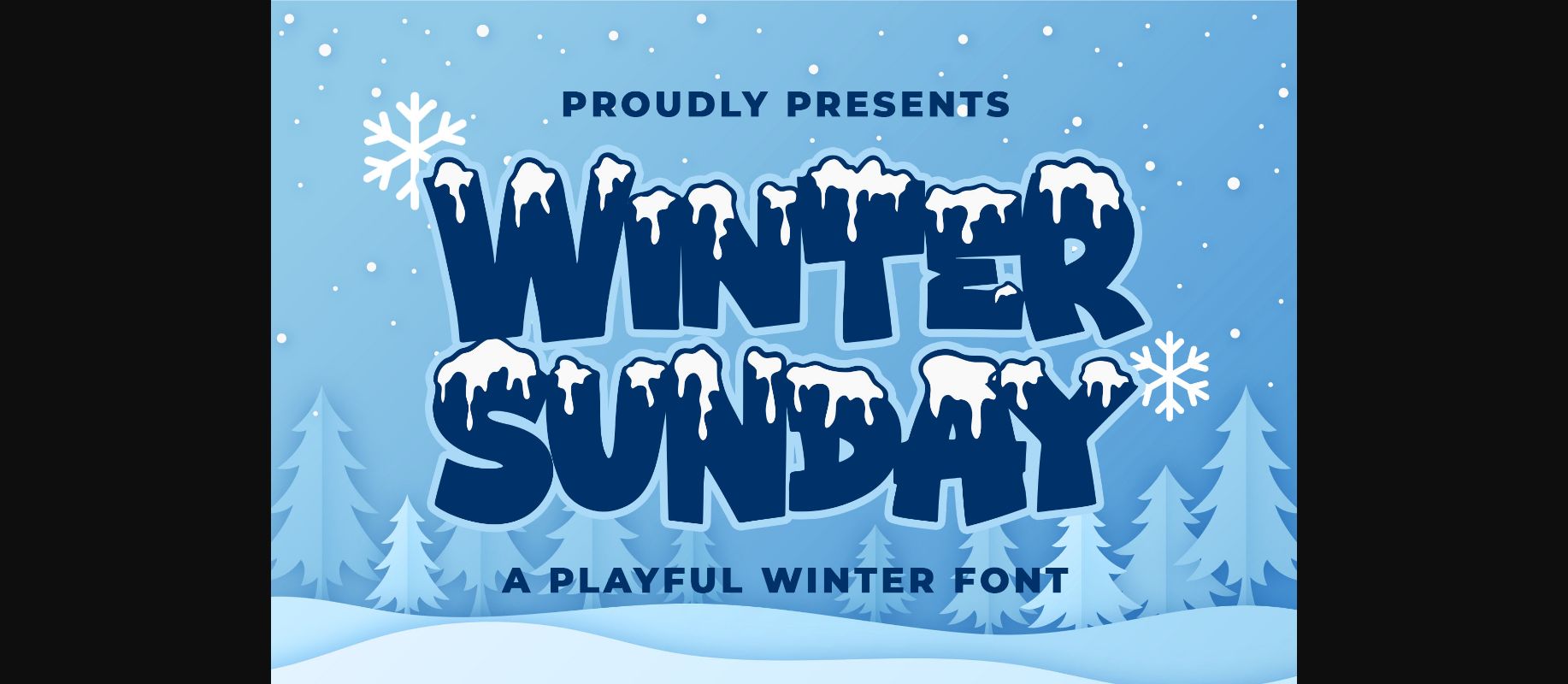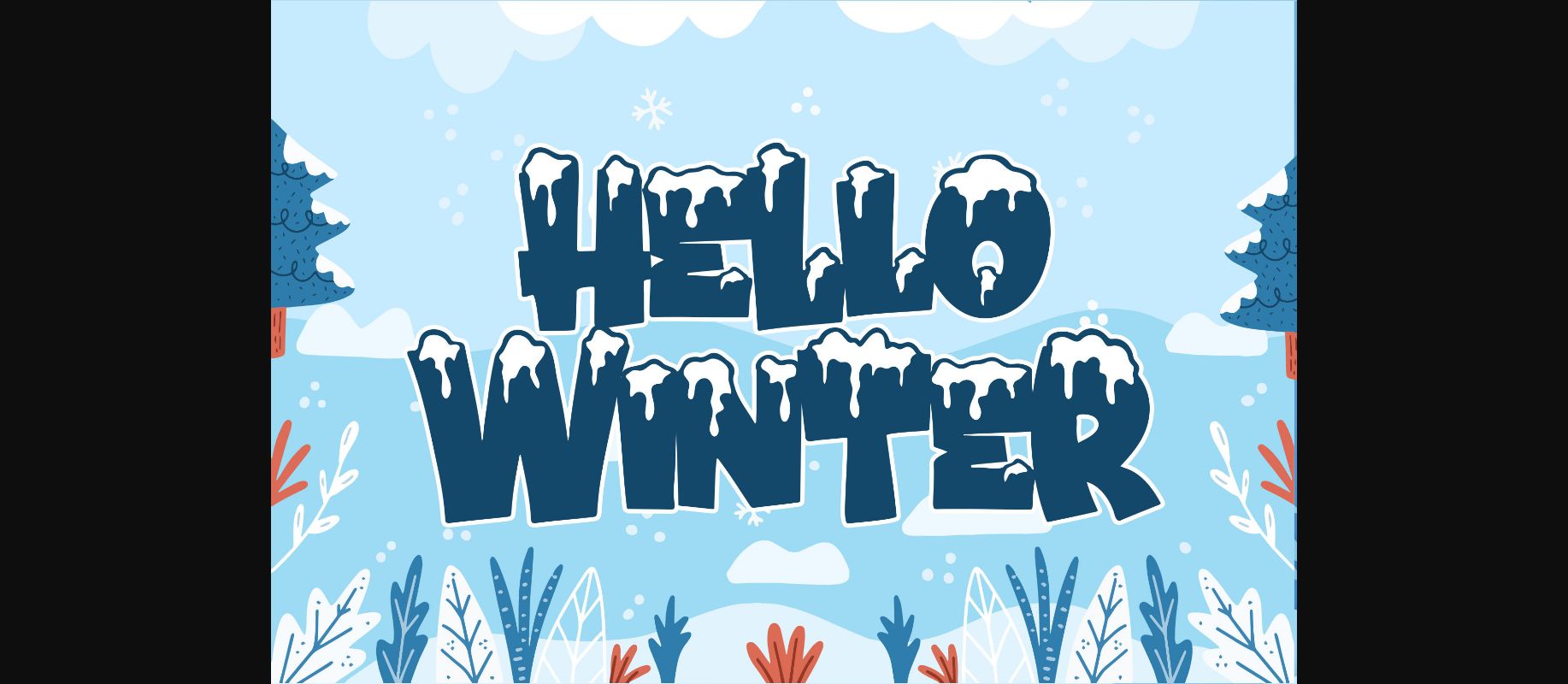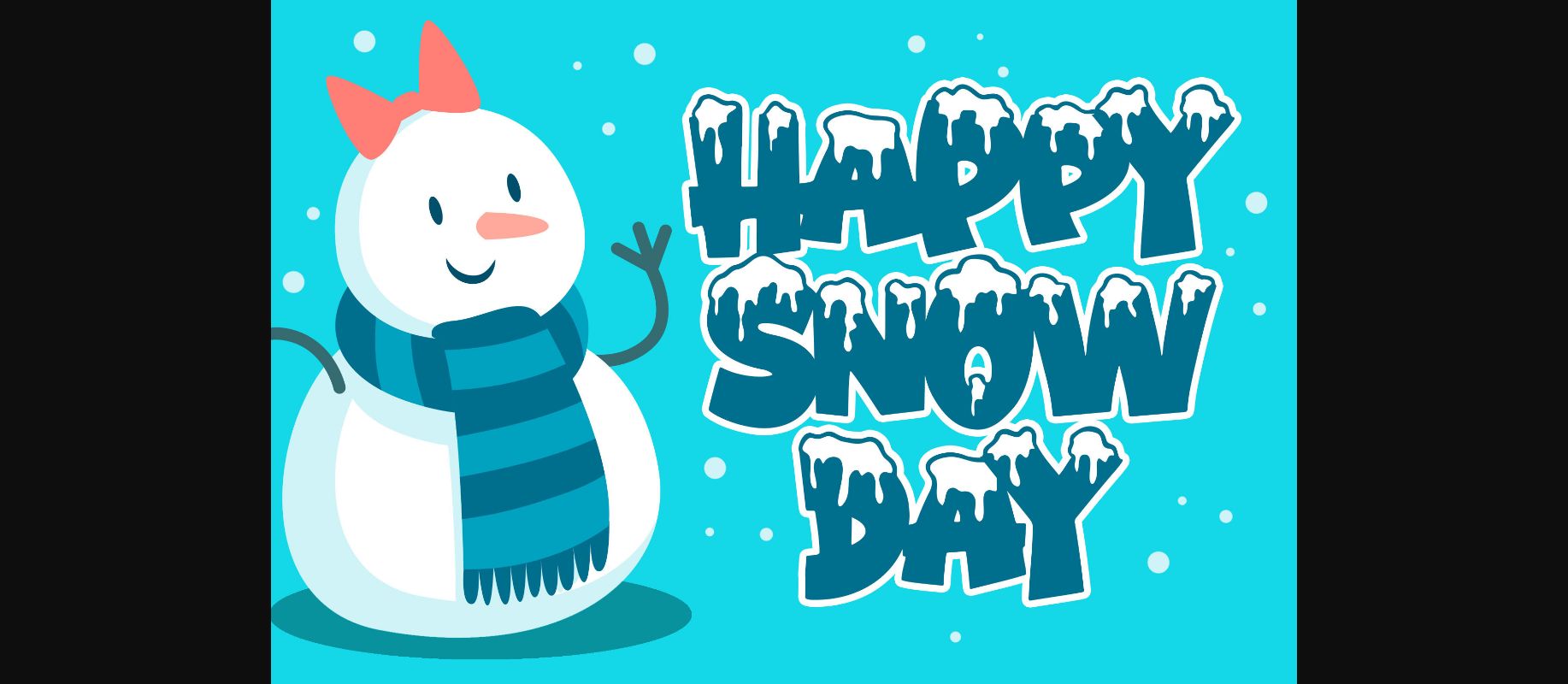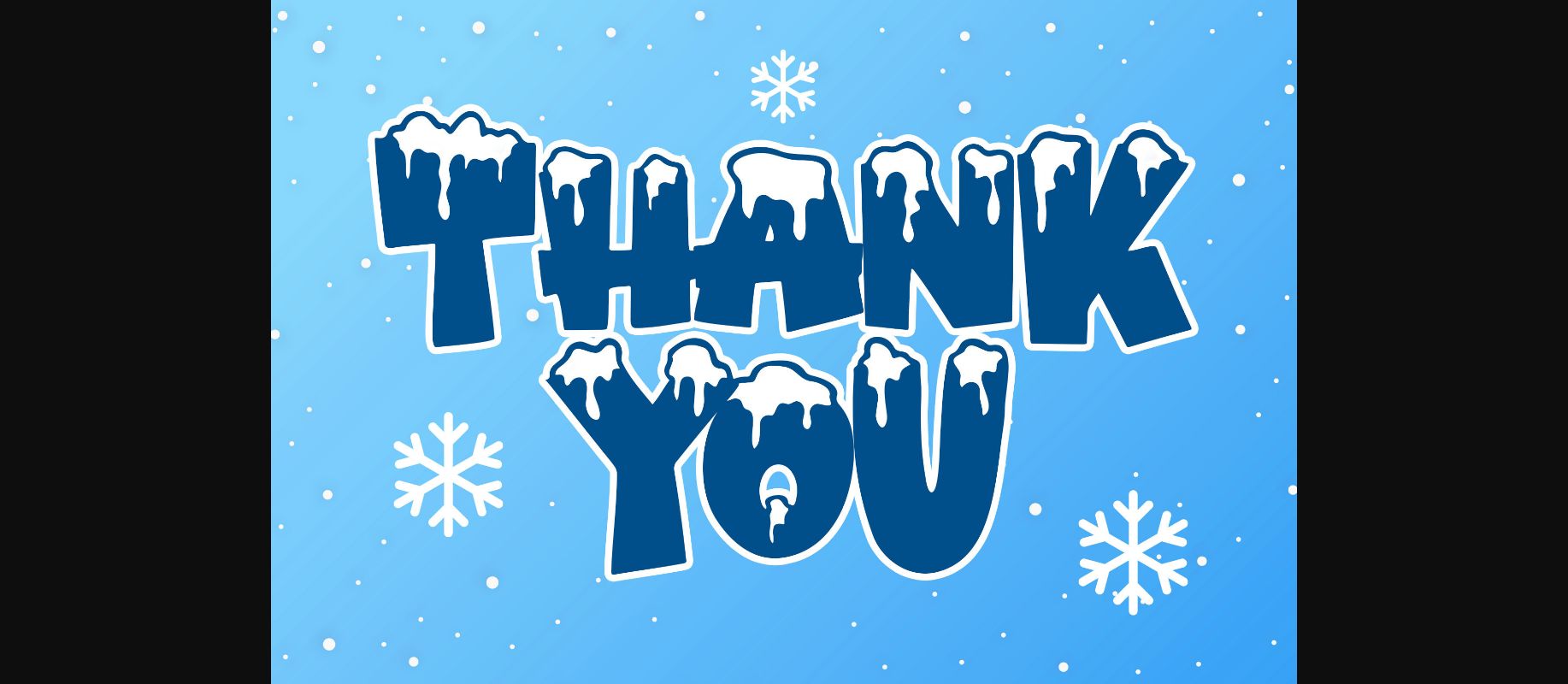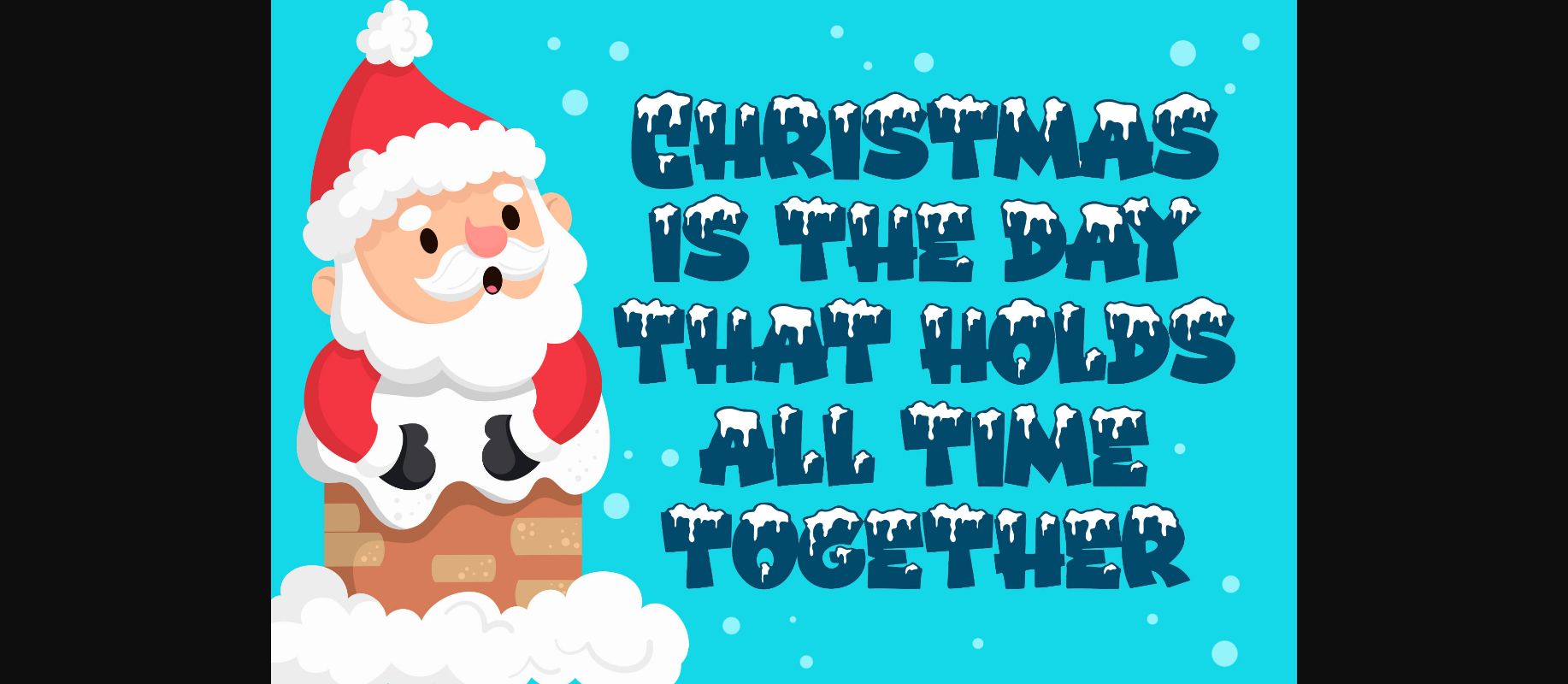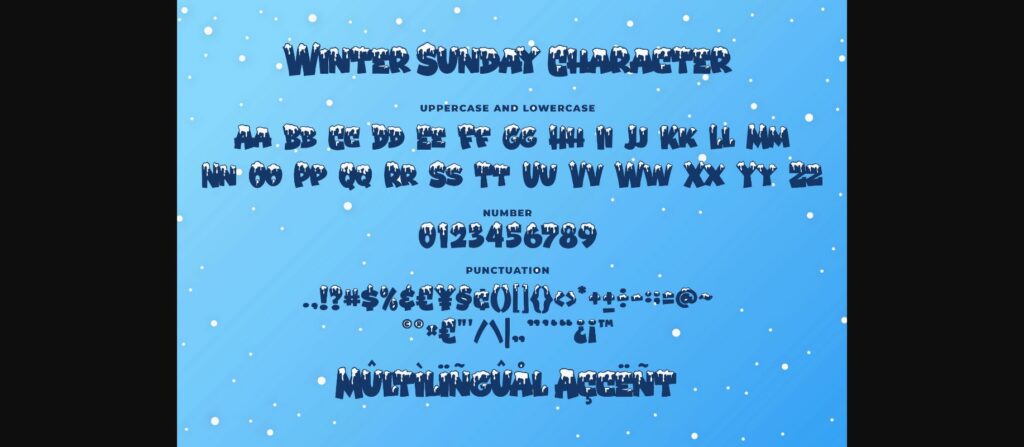
Winter Sunday is a playful winter decorative font, perfect for creative projects that need a playful and attractive feel. Use it for Christmas designs, wintery projects, apparel, children’s designs, storybooks, or more.